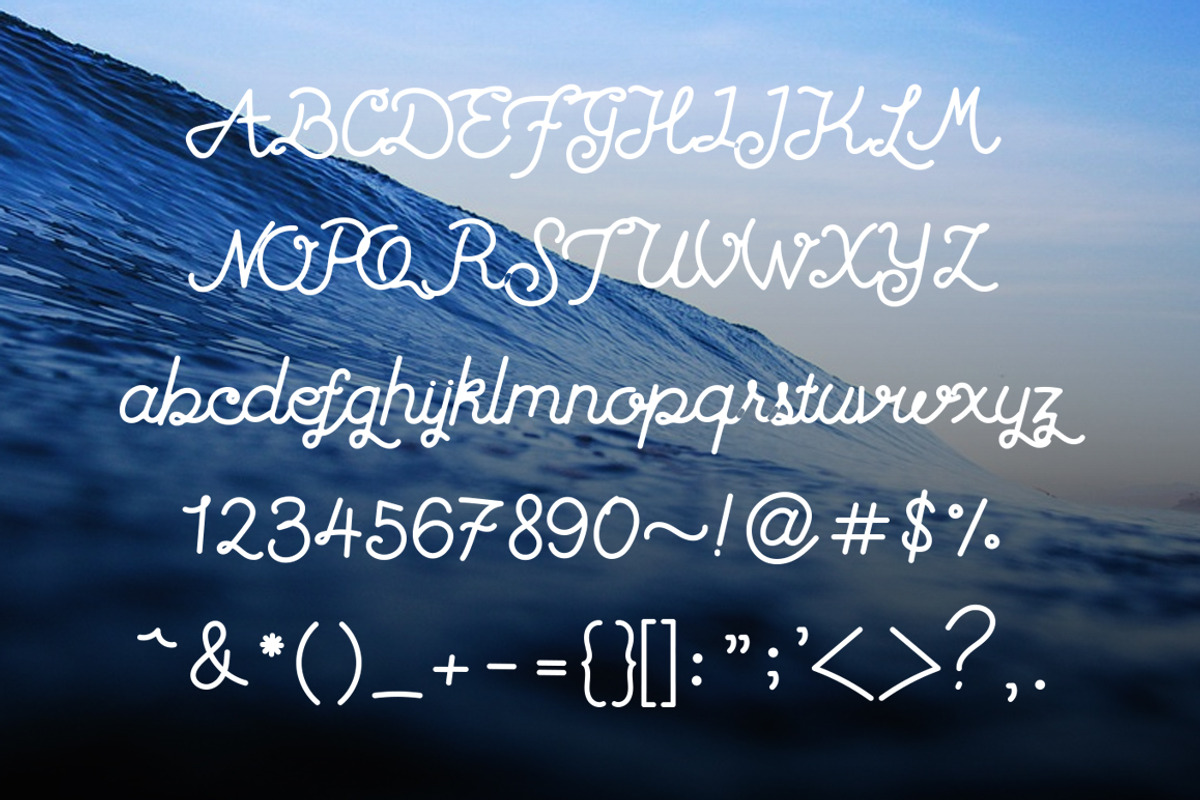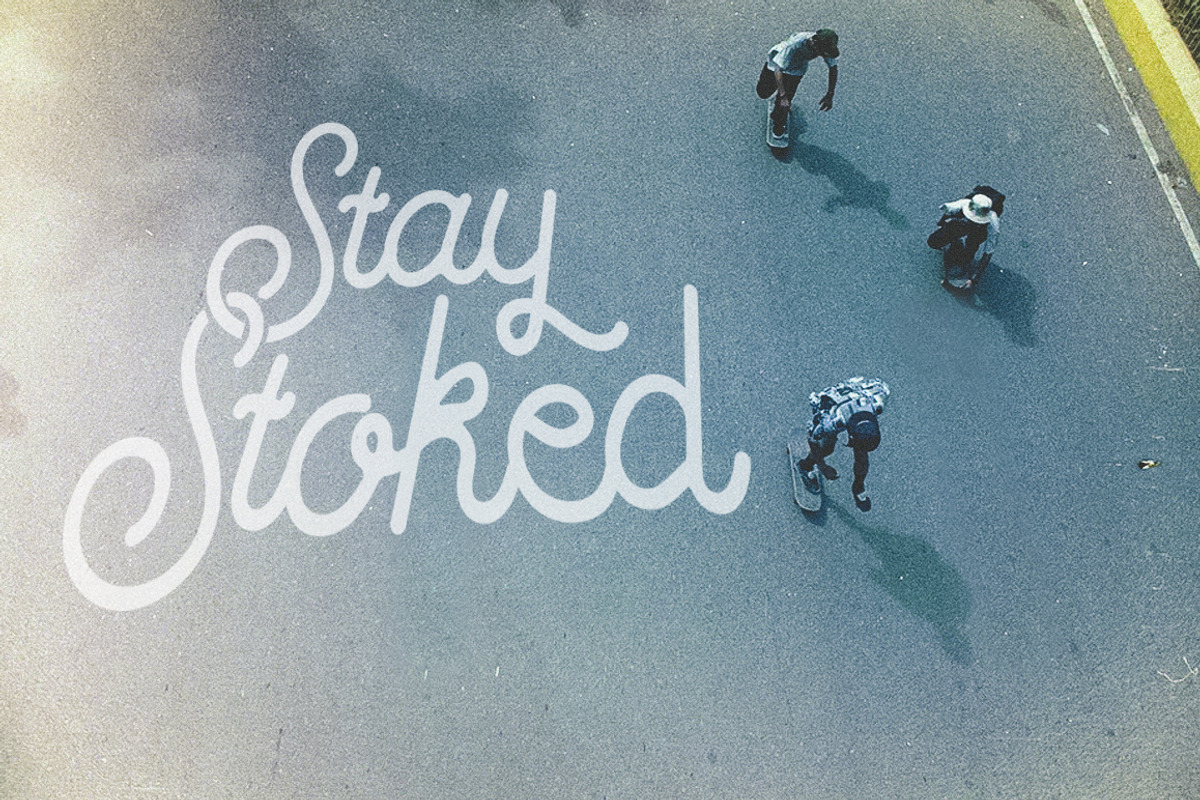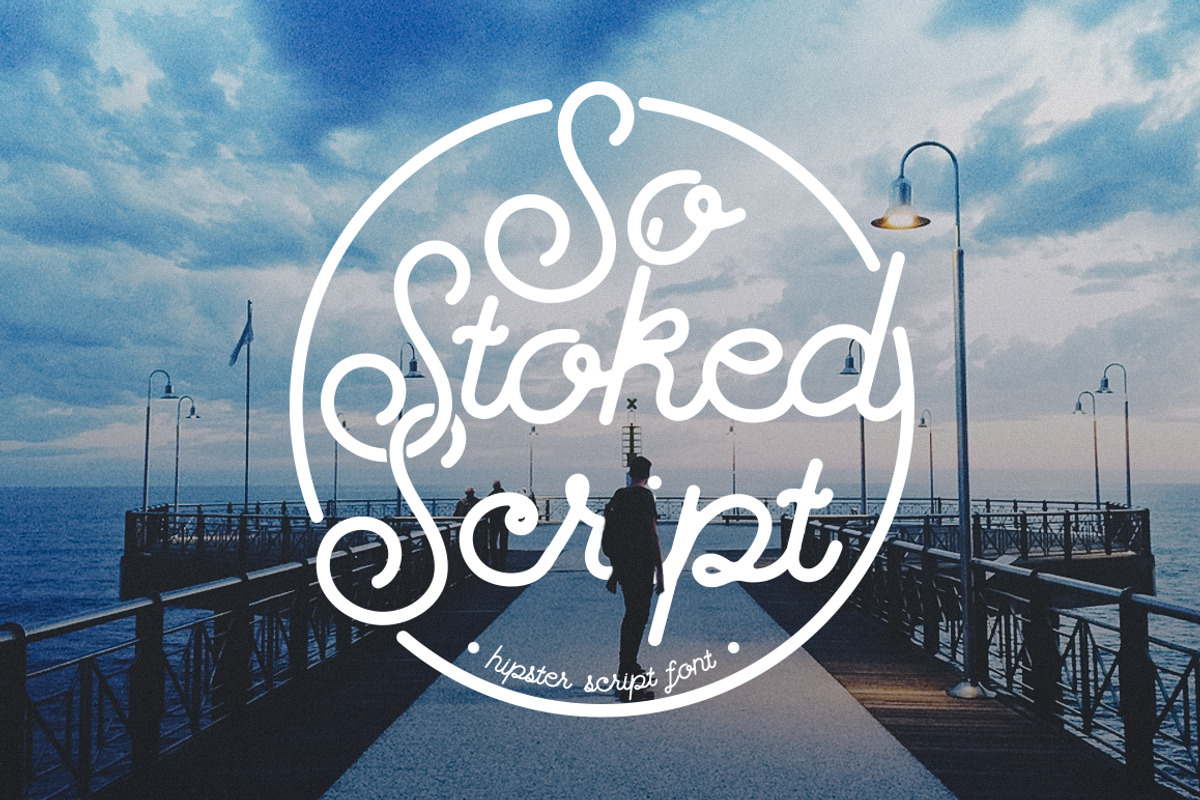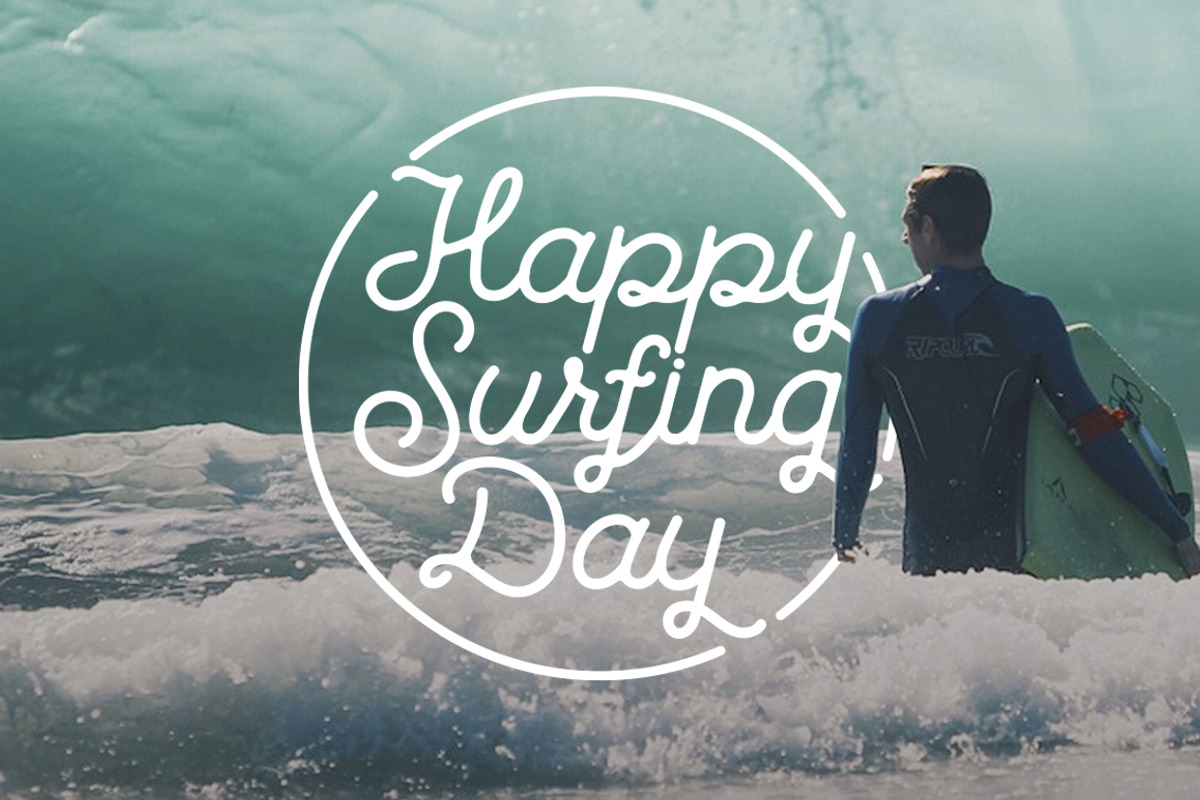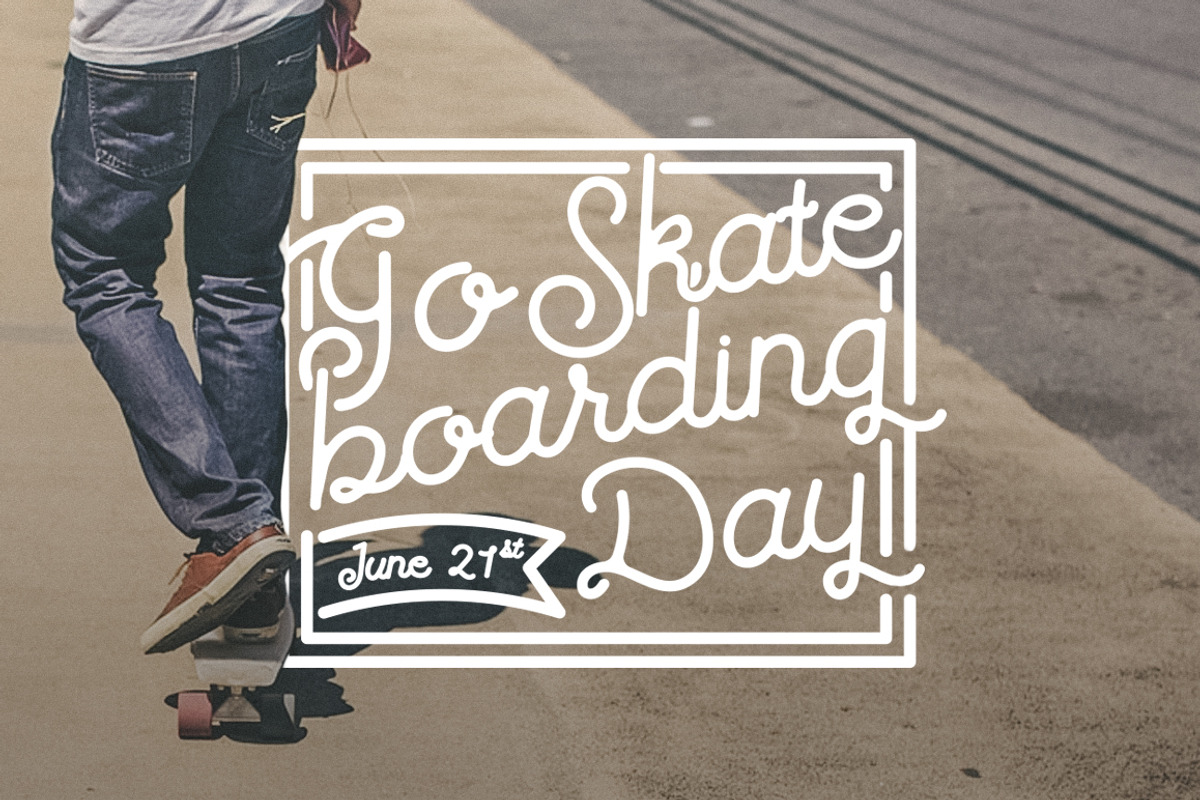
So Stoked Script Font
So Stoked Script Font by dreamwaves is a font selected for branding, posters, packaging, typography.
Why So Stoked Script Font is worth a look
So Stoked Script Font by dreamwaves fits naturally into Branding, posters, packaging, typography.